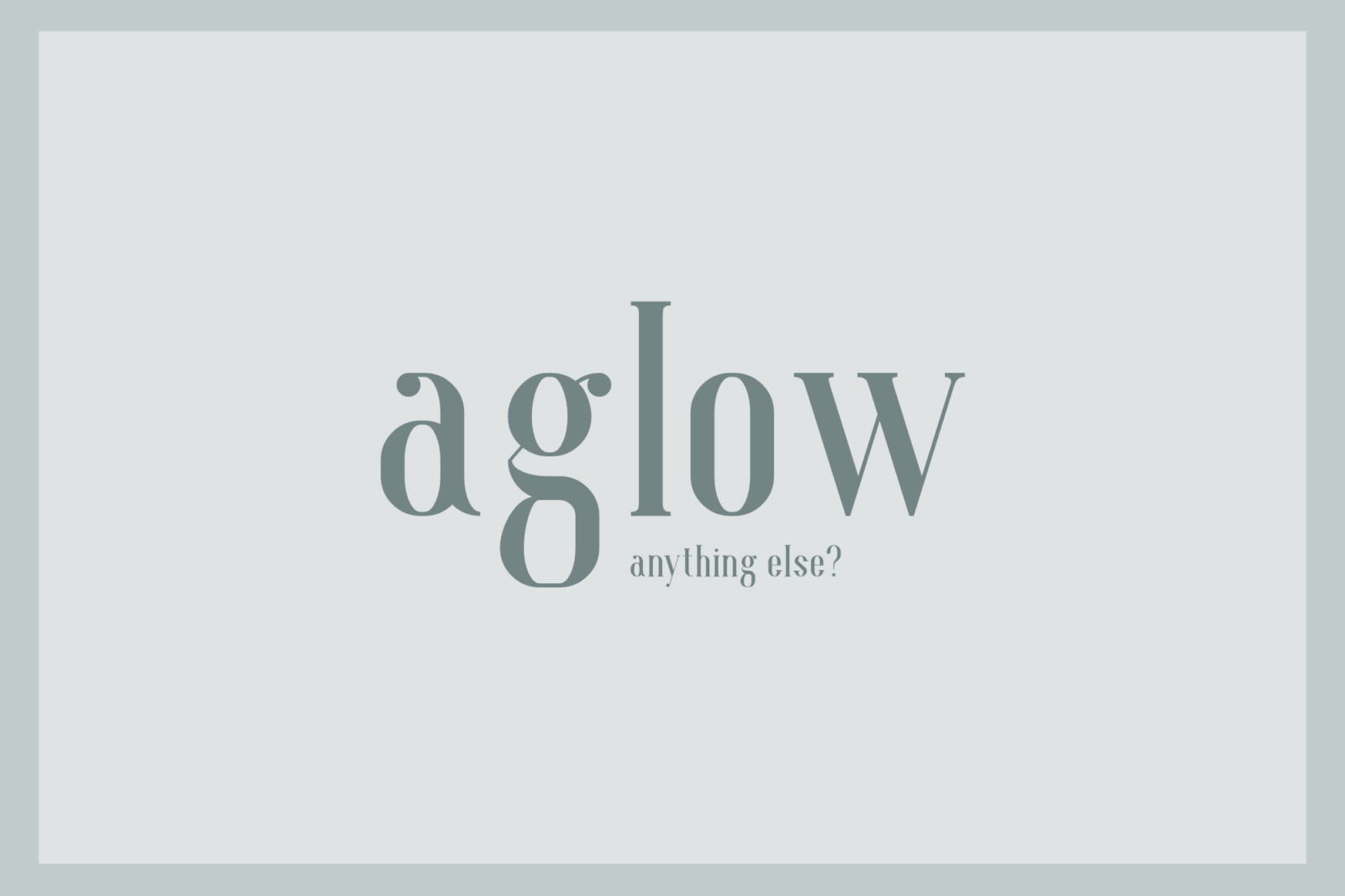
The Aglow Font: A Timeless Choice for Creative Projects
Have you ever been in the middle of a design project, and suddenly, you’re stuck on finding the perfect font? I recall a recent experience where I was working on a client’s branding project, and I just couldn’t seem to find a font that fit the vibe. That’s when I stumbled upon the Aglow font, and it was love at first sight! ✨
The Aglow font, also known as Aglos, is a classic-style serif font that comes in 4 different variations. Its ease of readability makes it perfect for body text or paragraphs, and I was excited to dive deeper into its features and capabilities.
An Honest Review of Aglow Font
- ✅ Easy to read: The Aglow font is crisp and clear, making it perfect for long blocks of text.
- ✨ Classic style: The serif design gives it a timeless feel that works well for a variety of design projects.
- 🔄 Versatile: With 4 different variations, you can experiment with different styles to find the one that suits your project best.
While the Aglow font is an excellent choice, there are a few things to keep in mind: 🤔
- ⚠️ Limited language support: As with many fonts, language support might be limited, so be sure to check the font’s specifications before using it for a multilingual project.
- ⚠️ Not ideal for headings: While it’s great for body text, the Aglow font might not be the best choice for headings or titles, as it can get lost in the design.
The Story Behind Aglow Font
The Aglow font was designed with the intention of creating a timeless, classic-style serif that would be easy to read and versatile enough for various design projects. While the designer behind Aglow remains a bit of a mystery, their inspiration was likely drawn from traditional typography and a passion for creating beautiful, functional fonts.
Q: What is the Aglow font?
A: The Aglow font, also known as Aglos, is a classic-style serif font that comes in 4 different variations.
Q: Is the Aglow font suitable for body text?
A: Yes, the Aglow font is easy to read and works well as body text or paragraphs.